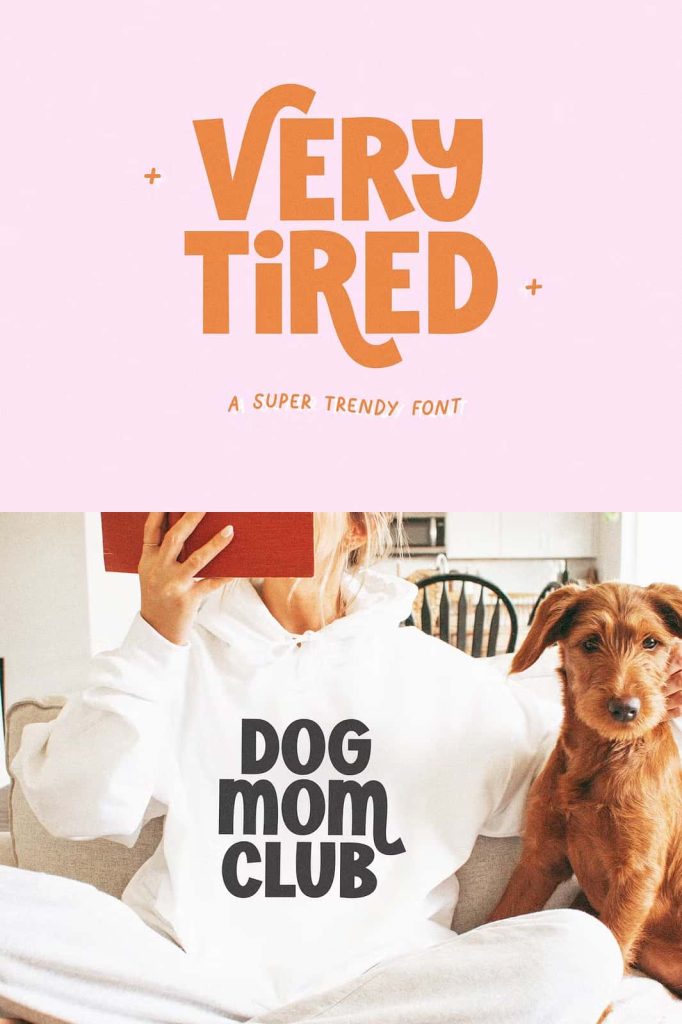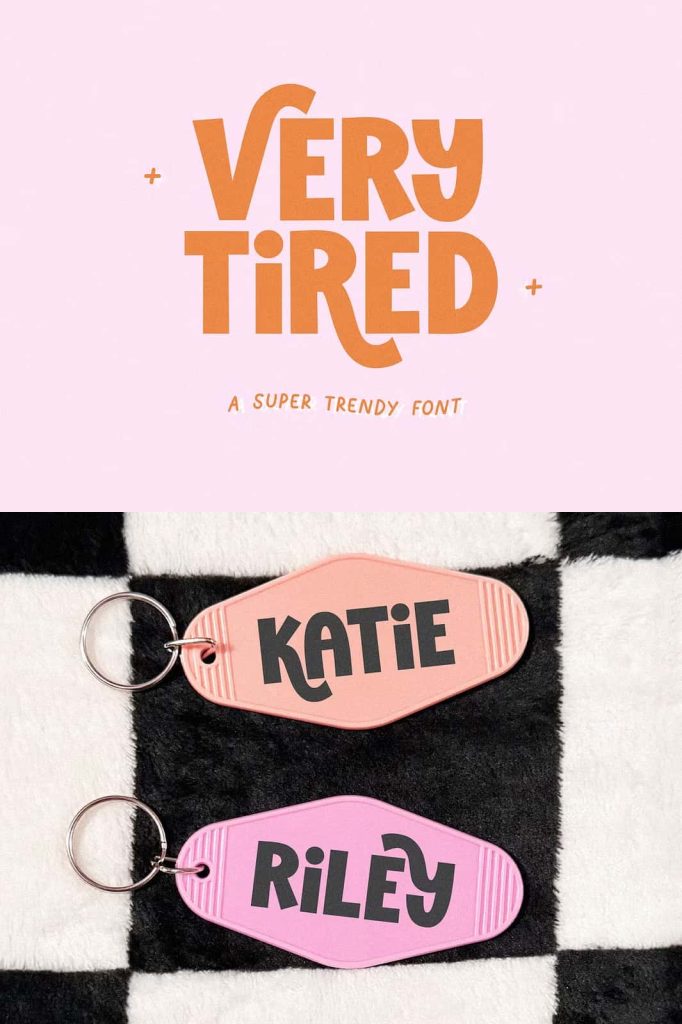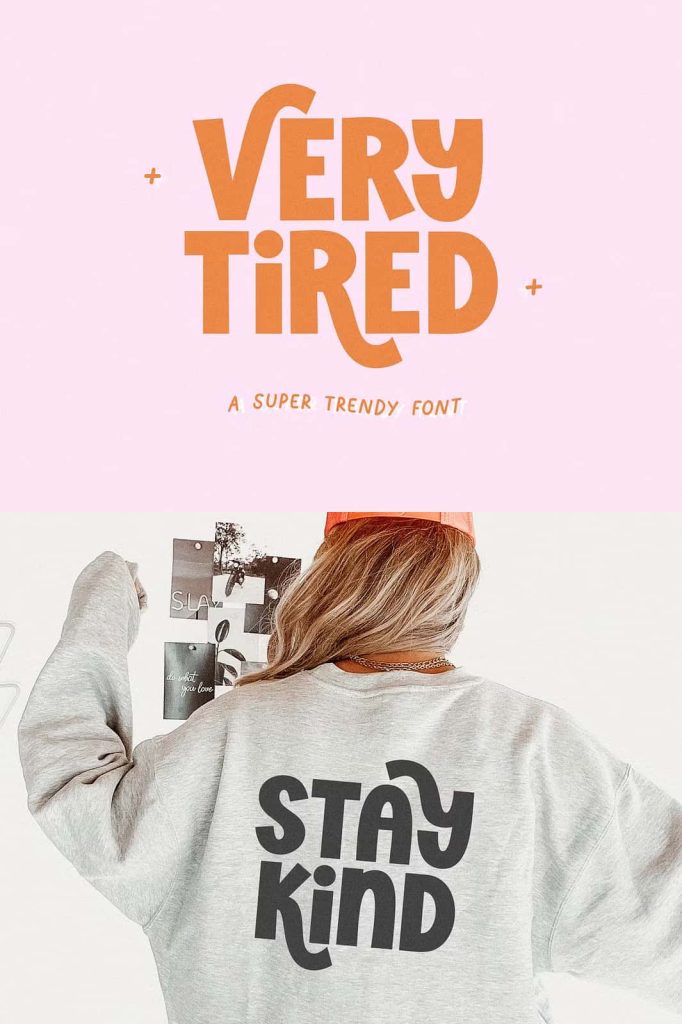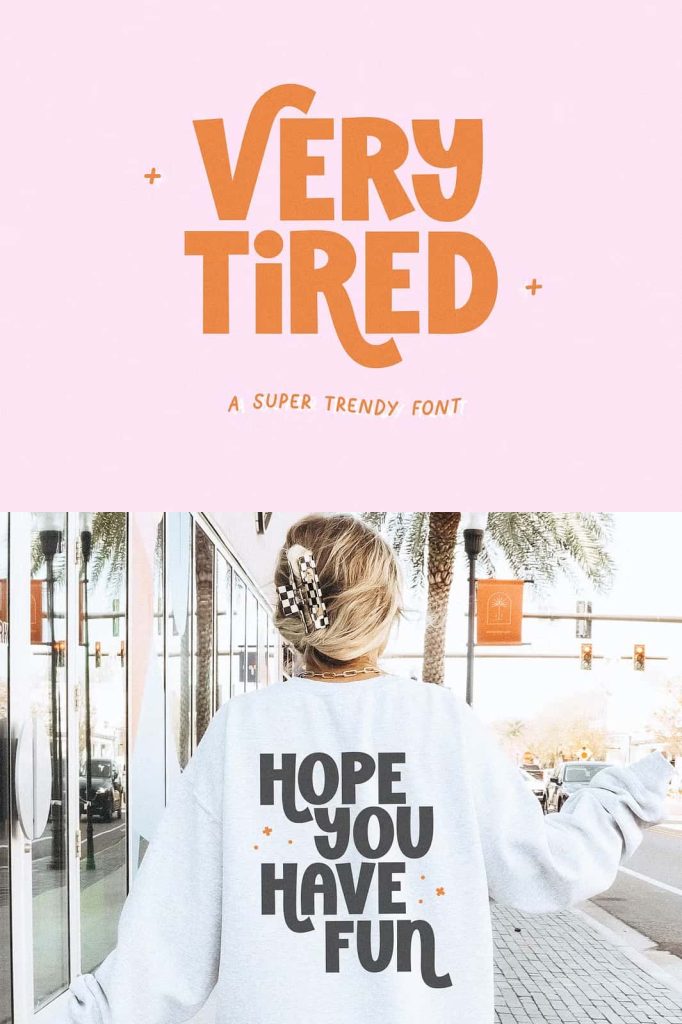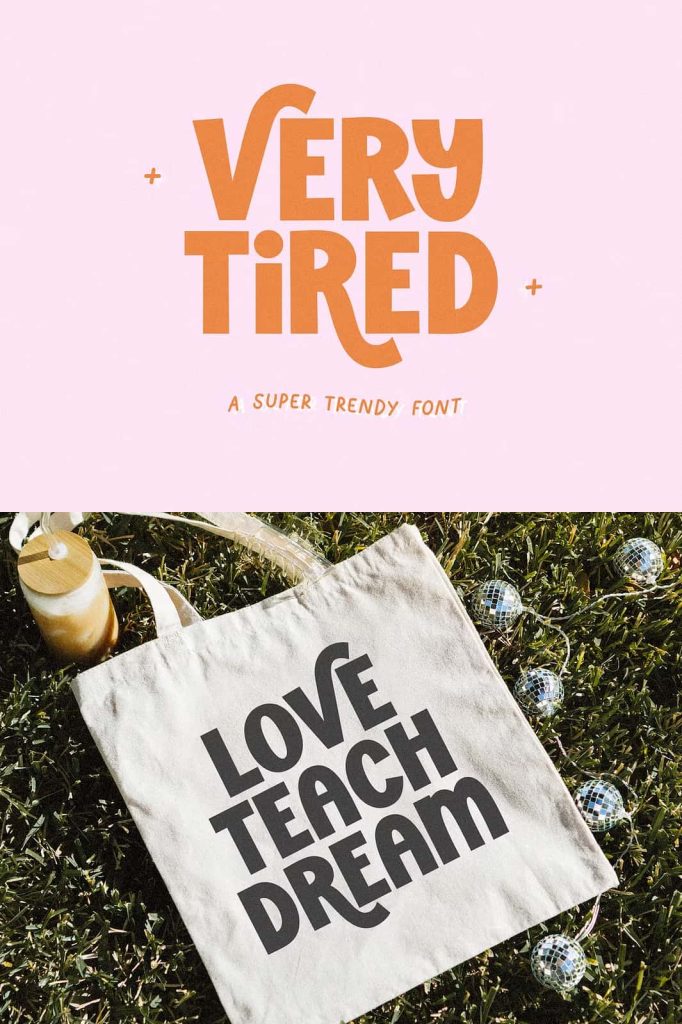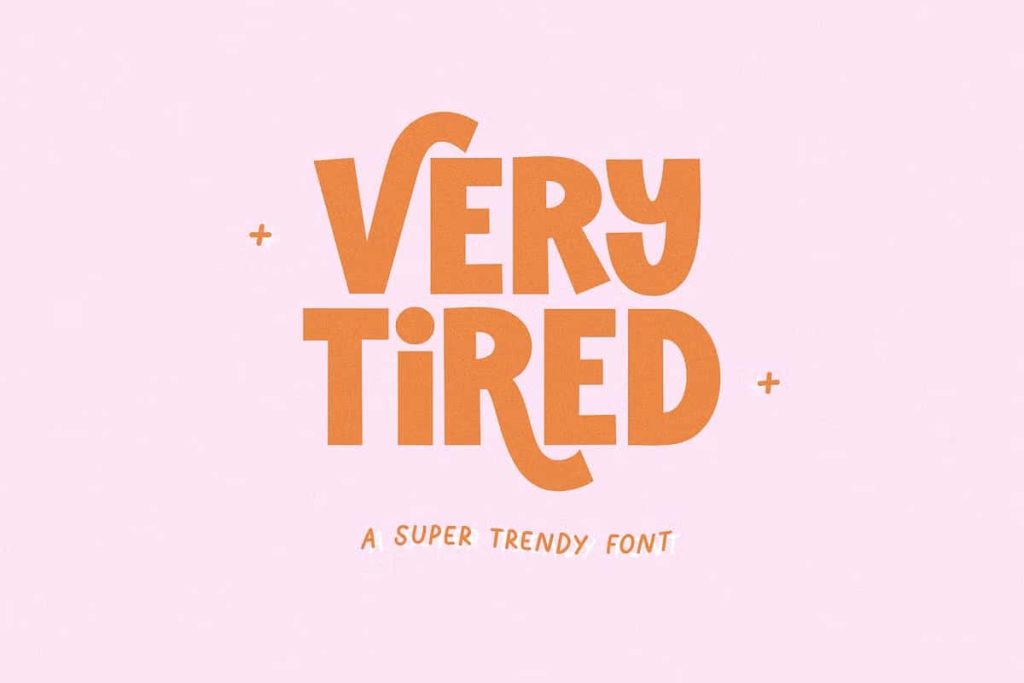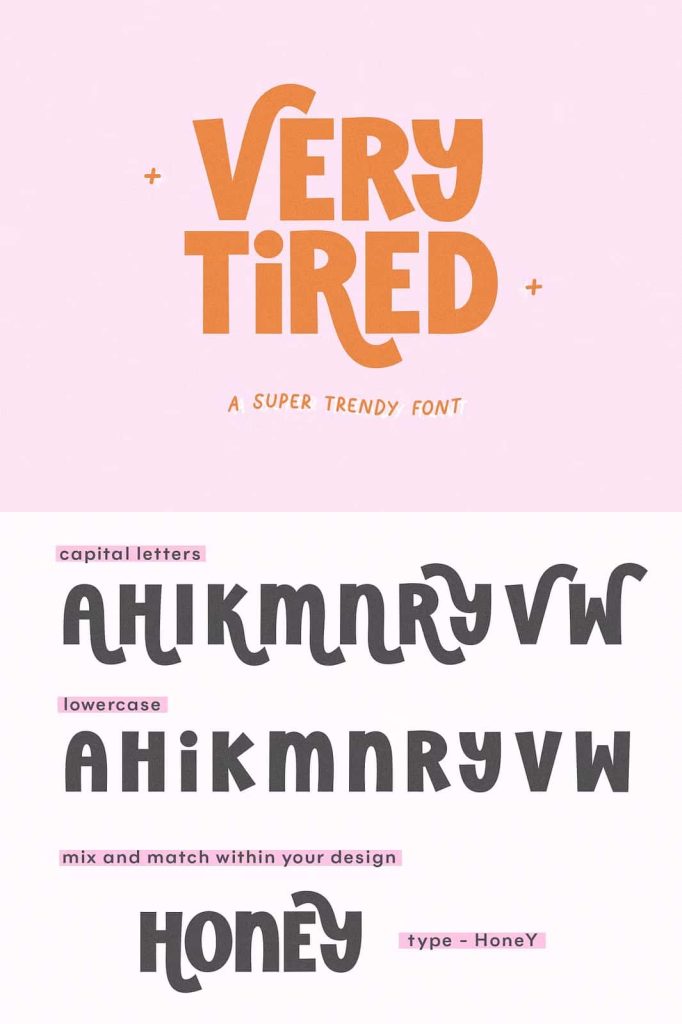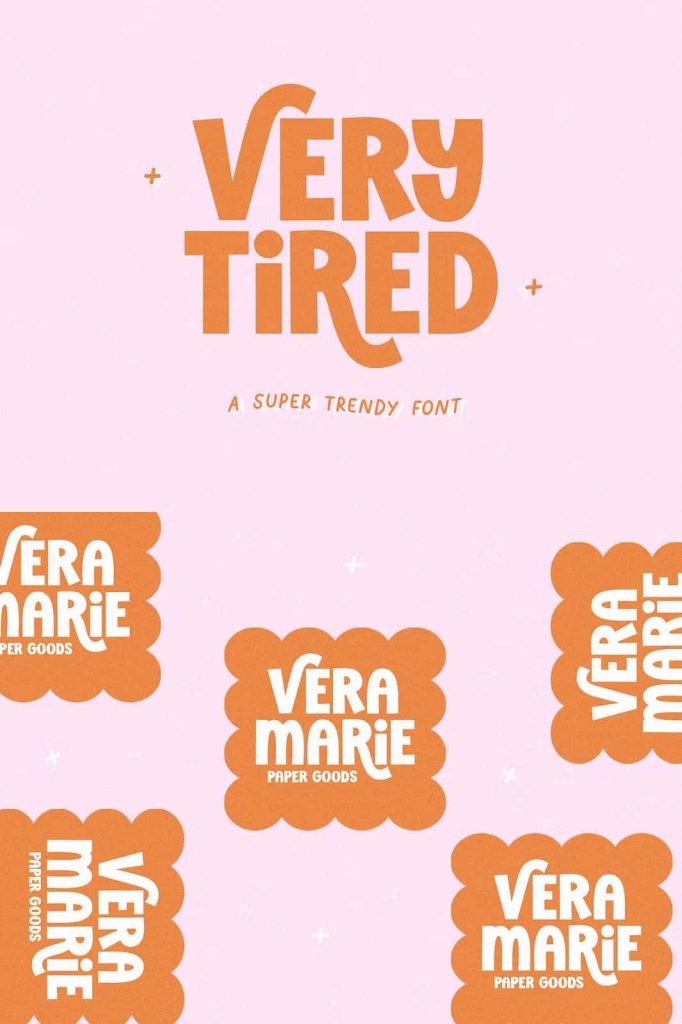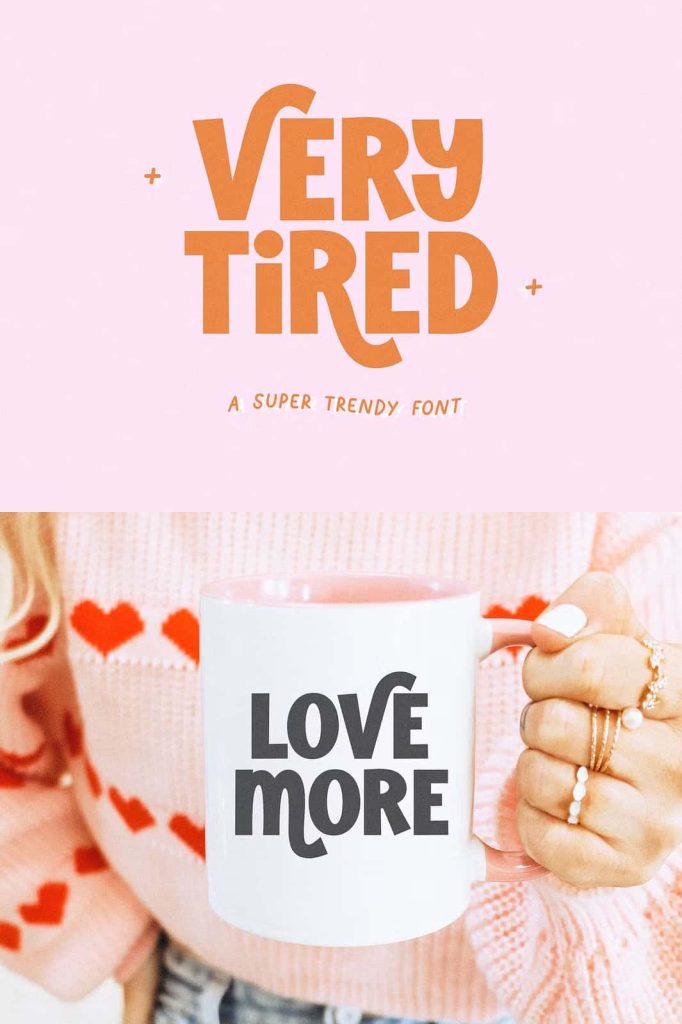
Very Tired Retro Design for Creative Projects
The Very Tired design brings a bold, expressive, and nostalgic feel to your creative work. This retro-inspired concept captures a relatable mood while maintaining a visually appealing aesthetic that stands out across different platforms. Whether you want to create eye-catching merchandise or elevate your digital content, this design gives you the flexibility and personality you need to make an impact.
Why Choose the Very Tired Design?
Designers and creators constantly search for visuals that connect emotionally with audiences. The Very Tired concept does exactly that by combining humor, relatability, and vintage style into one cohesive design. It communicates a feeling that many people instantly recognize, making it highly shareable and memorable.
This design works especially well when you want to:
- Create designs that feel authentic and expressive
- Tap into retro and boho-inspired trends
- Produce content that resonates with modern audiences
- Deliver visually appealing yet simple graphics
Perfect for Multiple Creative Uses
The versatility of the Very Tired design allows you to apply it across a wide range of projects. You can easily adapt it to both physical and digital products without losing its visual charm.
Apparel and Merchandise
Use this design to create stylish and relatable apparel such as t-shirts, hoodies, and tote bags. The retro vibe pairs perfectly with modern fashion trends, making it a strong choice for print-on-demand businesses and personal clothing brands.
Digital Design Tools
You can seamlessly integrate the Very Tired design into tools like Procreate and Canva. These platforms allow you to customize colors, textures, and layouts, helping you create unique variations that match your brand identity or personal style.
Branding and Logos
If you want to build a brand with personality, this design offers a playful yet professional touch. It works well for logos, brand elements, and visual identities that aim to feel approachable and modern while still maintaining a vintage edge.
Crafting and DIY Projects
Crafters can use this design for Cricut projects, vinyl cutting, stickers, and greeting cards. Its clean yet expressive style ensures that it translates well across different materials and formats, making your handmade products look polished and appealing.
Marketing and Social Media
In the fast-paced world of social media, standing out is essential. The Very Tired design helps you create scroll-stopping posts, posters, and promotional graphics. Its relatable message encourages engagement, shares, and interaction from your audience.
Key Design Features
The strength of this design lies in its balance between simplicity and personality. It uses retro-inspired elements while keeping the message clear and direct. This makes it easy to adapt across different mediums without overwhelming the viewer.
- Bold and expressive typography
- Retro and boho-inspired aesthetics
- Highly adaptable for print and digital use
- Clean composition for easy customization
Enhance Your Creative Workflow
Using the Very Tired design can speed up your creative process. Instead of starting from scratch, you can build on a concept that already resonates with audiences. This allows you to focus more on refining your ideas and delivering high-quality results.
You can experiment with different color palettes, textures, and layouts to make the design truly your own. Whether you prefer a minimalist look or a more detailed composition, this design adapts effortlessly to your vision.
Final Thoughts
The Very Tired retro design offers a powerful combination of relatability, style, and versatility. It fits perfectly into a wide range of creative applications, from apparel and branding to digital content and DIY crafts. By using this design, you can create visuals that not only look great but also connect with your audience on a deeper level.
If you want to produce designs that stand out, feel authentic, and perform well across platforms, the Very Tired concept is a smart and creative choice.